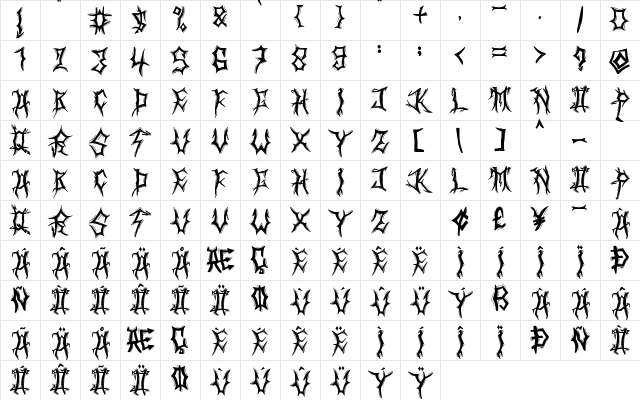
Black Dreams - Personal use Regular
Designer: Letterara 2019
Complete Black Dreams - Personal use Regular glyph index. Displaying only characters natively supported by Black Dreams - Personal use Regular font.
Design Context for Black Dreams - Personal use
Black Dreams - Personal use is a composed and adaptable typeface that performs quietly and consistently across a wide range of design contexts.